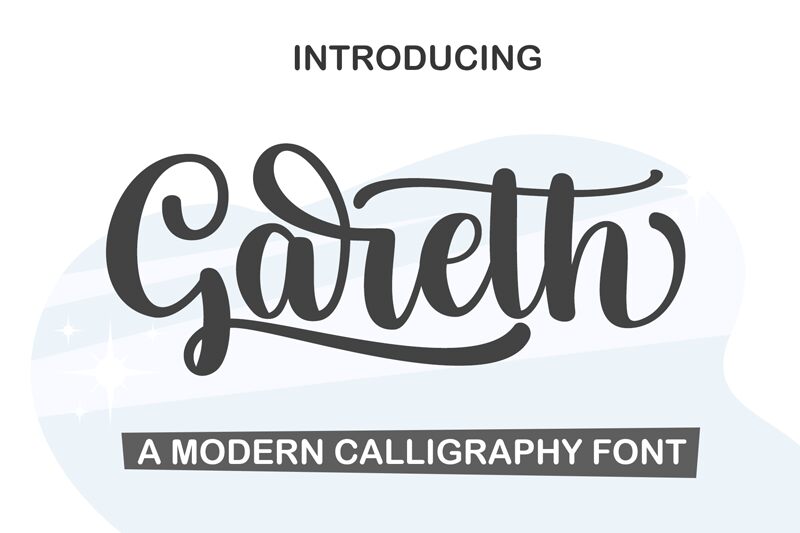
Gareth, the semi-bold calligraphy font by Bearytype, brings a modern touch to traditional script. With its unique strokes and curves, Gareth is perfect for adding elegance and sophistication to any project. Use it for wedding invitations, branding materials, or even social media graphics to give your content an extra boost of style. Its semi-bold weight makes it easy to read while still maintaining its delicate aesthetic. Let Gareth elevate your designs and make them stand out from the crowd with its contemporary flair.